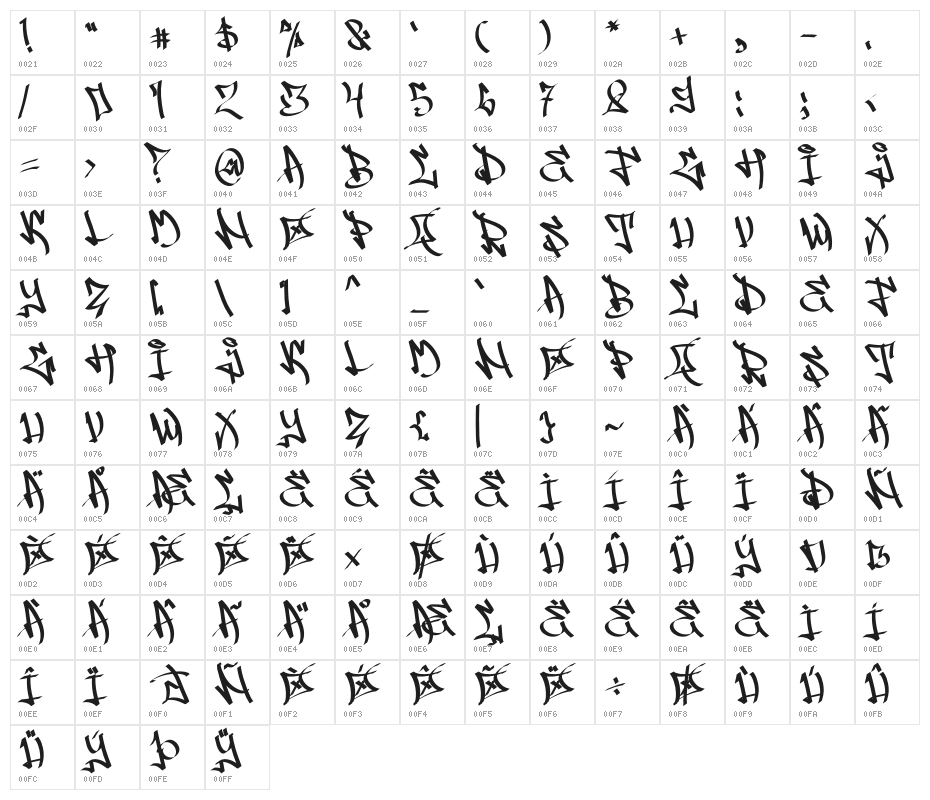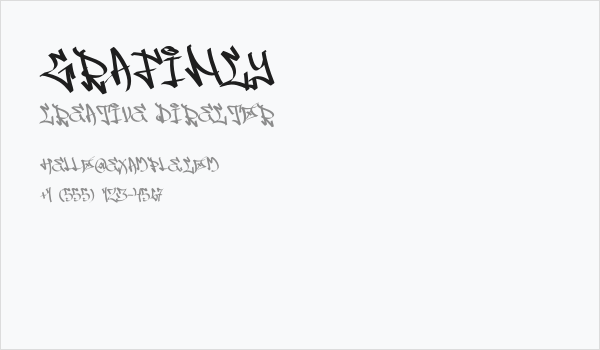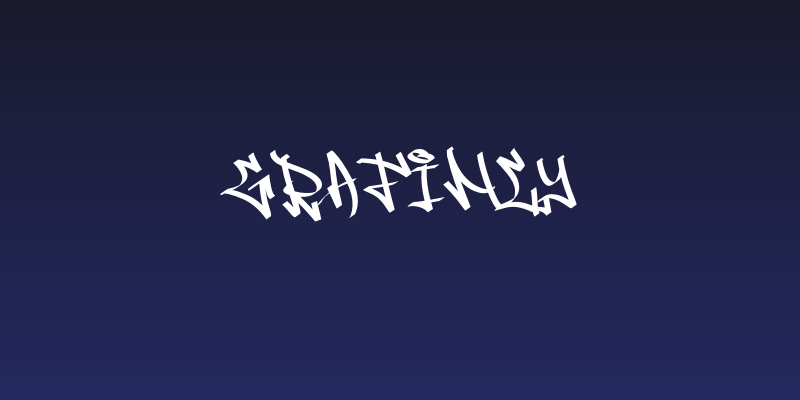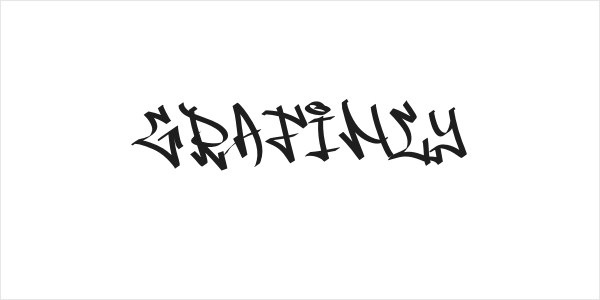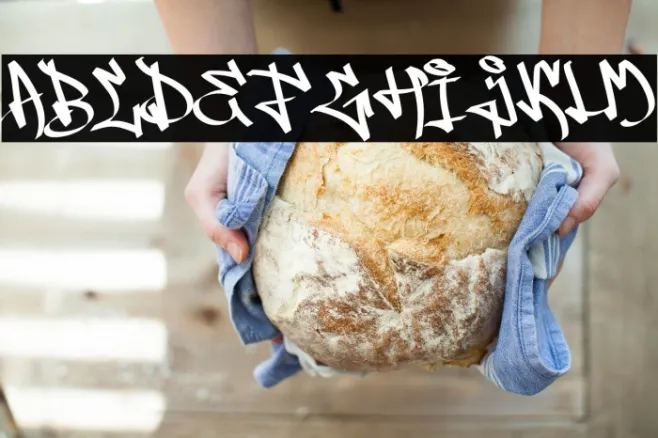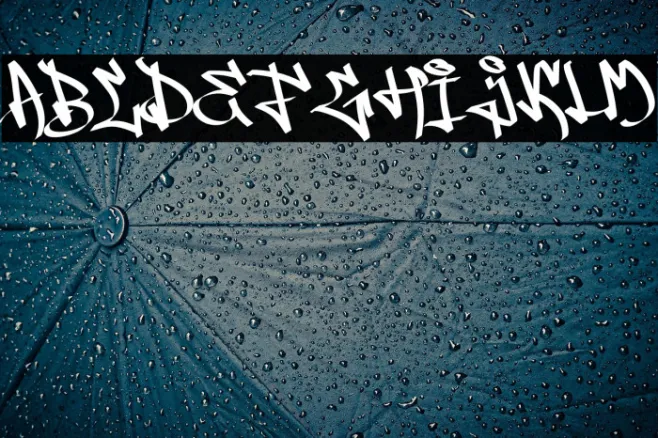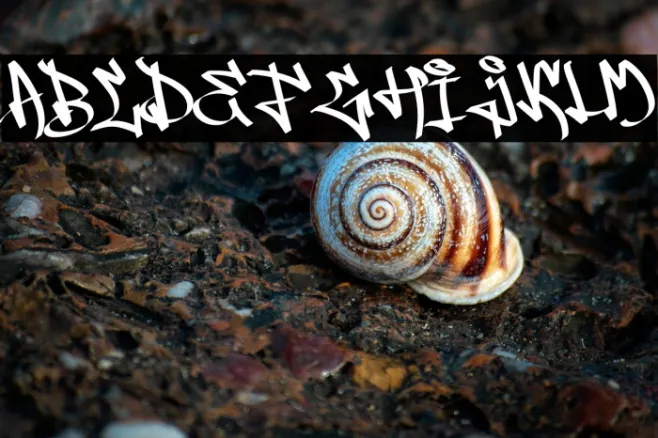
Grafincy Font
Grafincy Description
This font exudes a bold and edgy graffiti style, characterized by sharp angles and dynamic strokes. Each letter is uniquely crafted with an urban flair, making it stand out with its artistic and rebellious vibe. The uppercase and lowercase letters maintain a consistent aesthetic, while the numbers and special characters complement the overall design with their intricate details. The font's energetic and expressive nature makes it ideal for projects that require a strong visual impact.
| Overall Style | Modern, Urban, Edgy |
| Proposed Projects | Perfect for street art designs, urban-themed posters, music album covers, and edgy branding projects. |